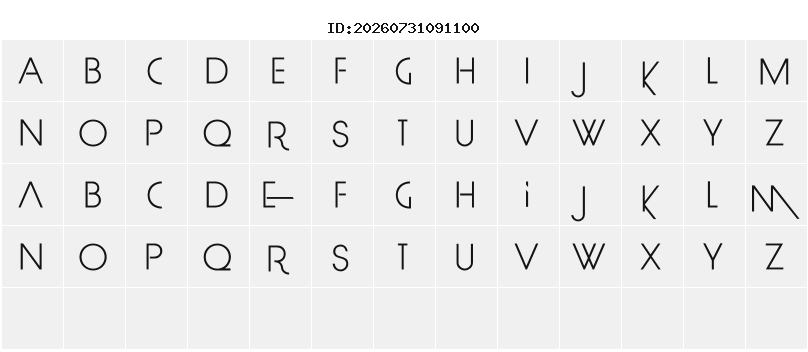
Limit Break.otf is a modern, elegant sans-serif font designed for ultimate readability and visual harmony. Perfect for branding, headlines, web design, and print materials.